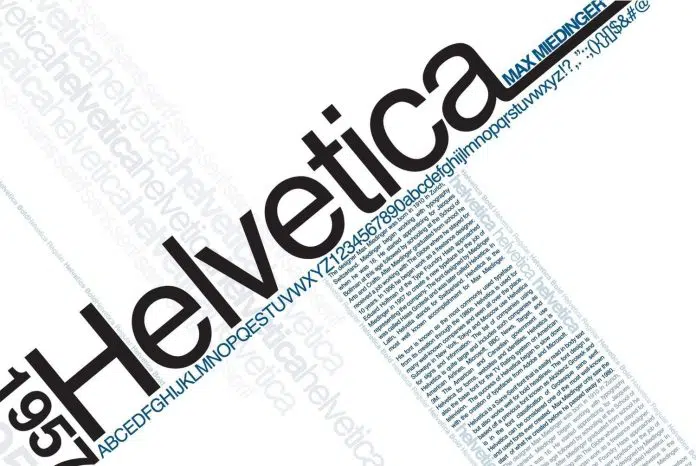
Helvetica Fonts Complete Family is perfect for corporate identity systems, international signage, modern editorial design, clean web interfaces, professional presentations, minimalist branding, transportation graphics, architectural documentation, Swiss design projects, and timeless communication materials.
Helvetica Fonts Complete Family is exciting because it represents the absolute pinnacle of typographic neutrality and design perfection, creating a typeface family that embodies clarity, functionality, and the purest expression of modernist design principles. This font brings unparalleled versatility and design excellence to any project, making it ideal for organizations that value clear communication, timeless aesthetics, and the proven reliability of the world's most trusted typeface. Its neutral character and universal appeal create an atmosphere of professional confidence that resonates across all cultures and industries worldwide.
Helvetica Fonts Complete Family includes thin, light, regular, medium, bold, and black weights in multiple widths from ultra-condensed to extended, each available in roman and italic styles with comprehensive international character support, providing designers with the ultimate typographic toolkit for any design challenge.
This legendary Swiss typeface combines mathematical precision with humanist readability, making Helvetica Fonts Complete Family Free Download the definitive choice for projects requiring both visual impact and functional excellence. The font's scientifically crafted letterforms feature perfect optical balance and neutral character that ensure maximum readability while maintaining the clean aesthetic that has defined modern design for over sixty years.
Whether you're developing global brand identity, designing public transportation systems, or creating international communications, Helvetica Fonts Complete Family delivers unmatched reliability and design authority. The font excels across every conceivable application, from microscopic technical labels to massive environmental graphics where clarity and legibility are absolutely critical.
Design professionals choose Helvetica Fonts Complete Family for its proven ability to communicate clearly across all contexts while providing the comprehensive weight and width options needed for complex typographic hierarchies. The font's timeless character makes it the preferred choice for governments, corporations, and institutions worldwide.
Each character demonstrates the mathematical perfection and optical precision that has made Helvetica the most widely used typeface in history, featuring balanced proportions and neutral styling that creates typography as reliable and enduring as Swiss engineering.